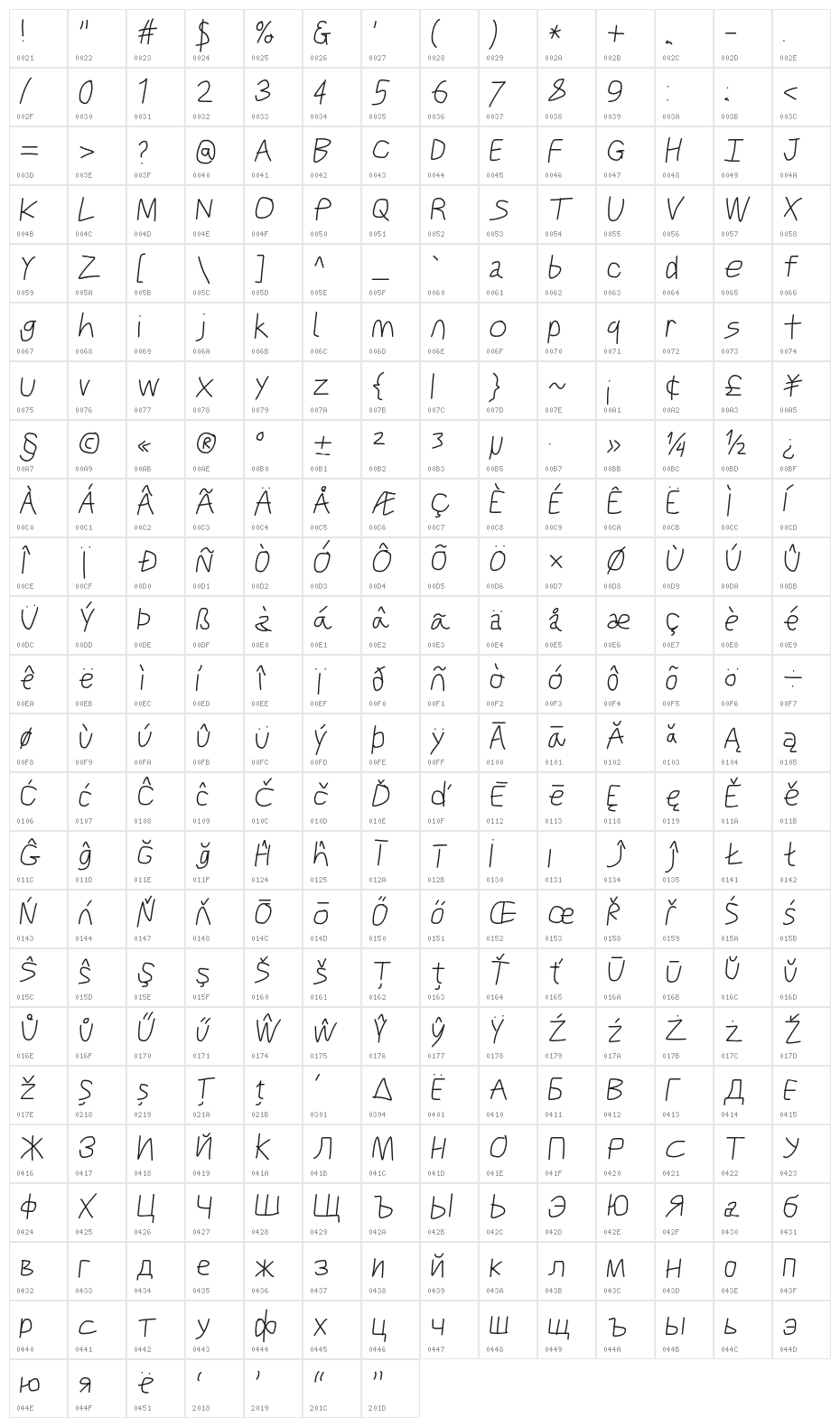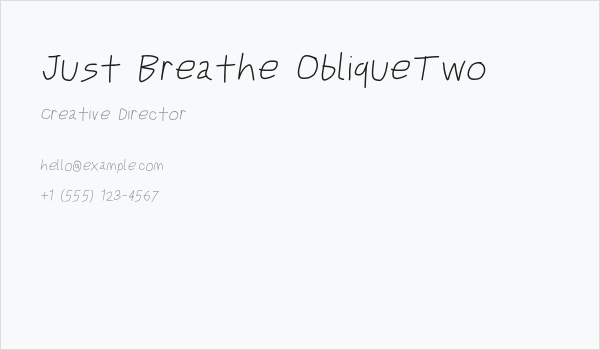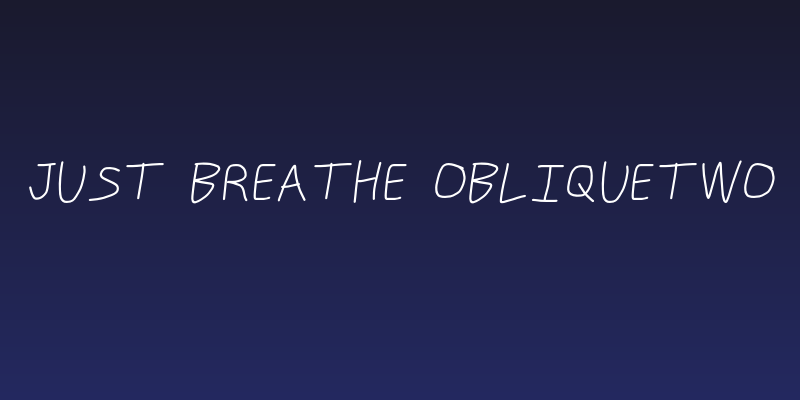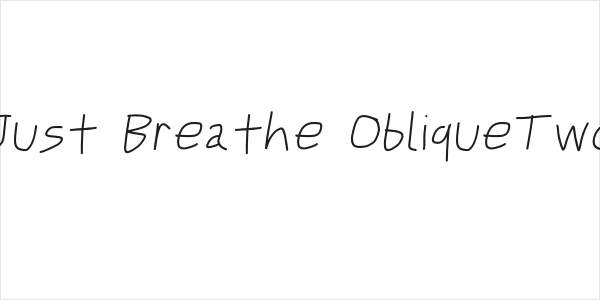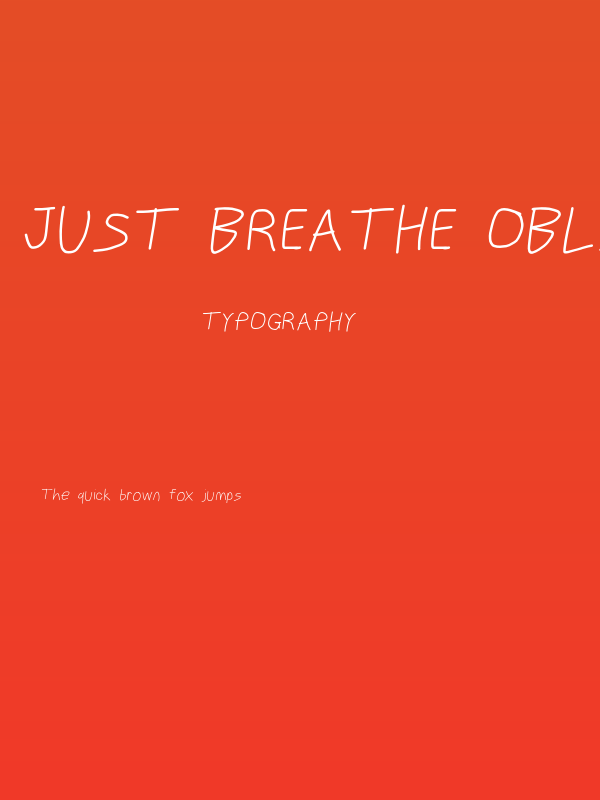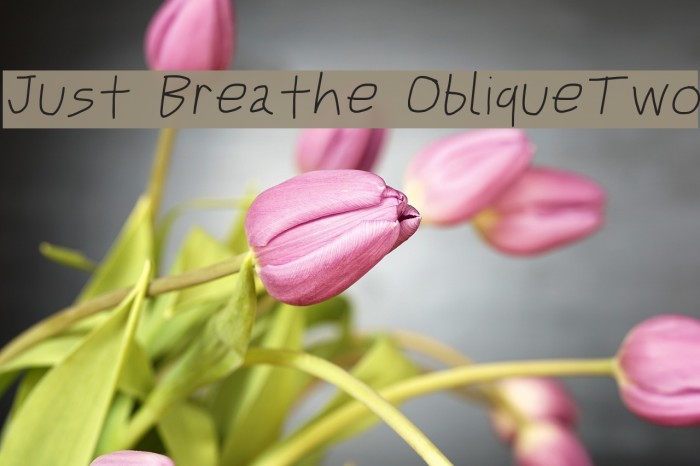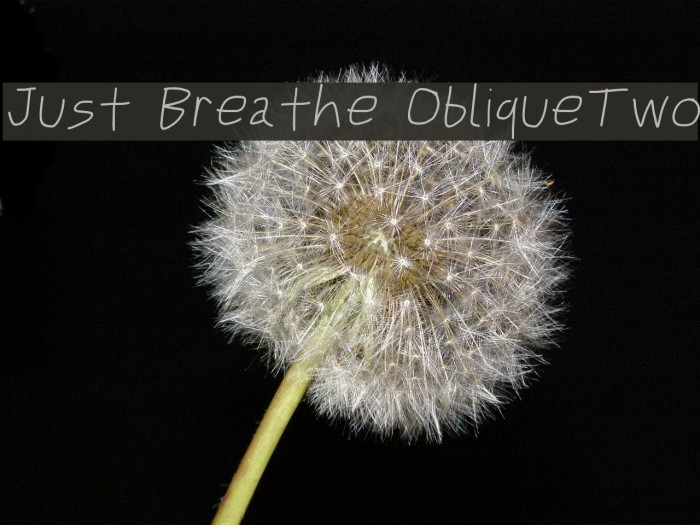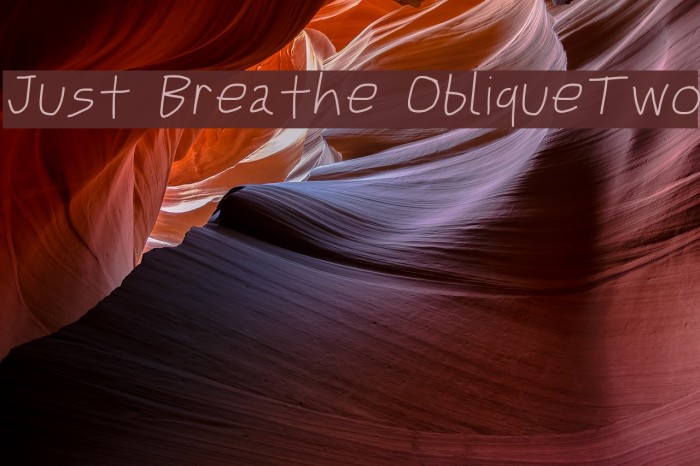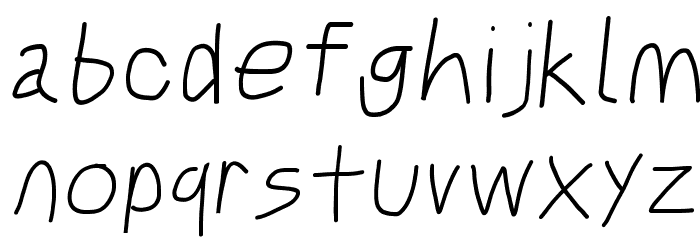
Just Breathe ObliqueTwo Font
Just Breathe ObliqueTwo Description
This font features a casual, handwritten style with a slight oblique slant, giving it a relaxed and informal appearance. The characters are crafted with a consistent stroke width, contributing to a uniform look across the alphabet. Uppercase and lowercase letters maintain a playful yet legible form, with rounded edges and a natural flow that mimics handwriting. The numerals and special characters follow the same style, ensuring coherence throughout. This font's simplicity and charm make it suitable for projects that require a personal touch or a friendly tone.
| Overall Style | Casual |
| Use Case | Logos, Headlines, Informal Text |
| Proposed Projects | Ideal for greeting cards, personal notes, casual branding, and social media graphics. |